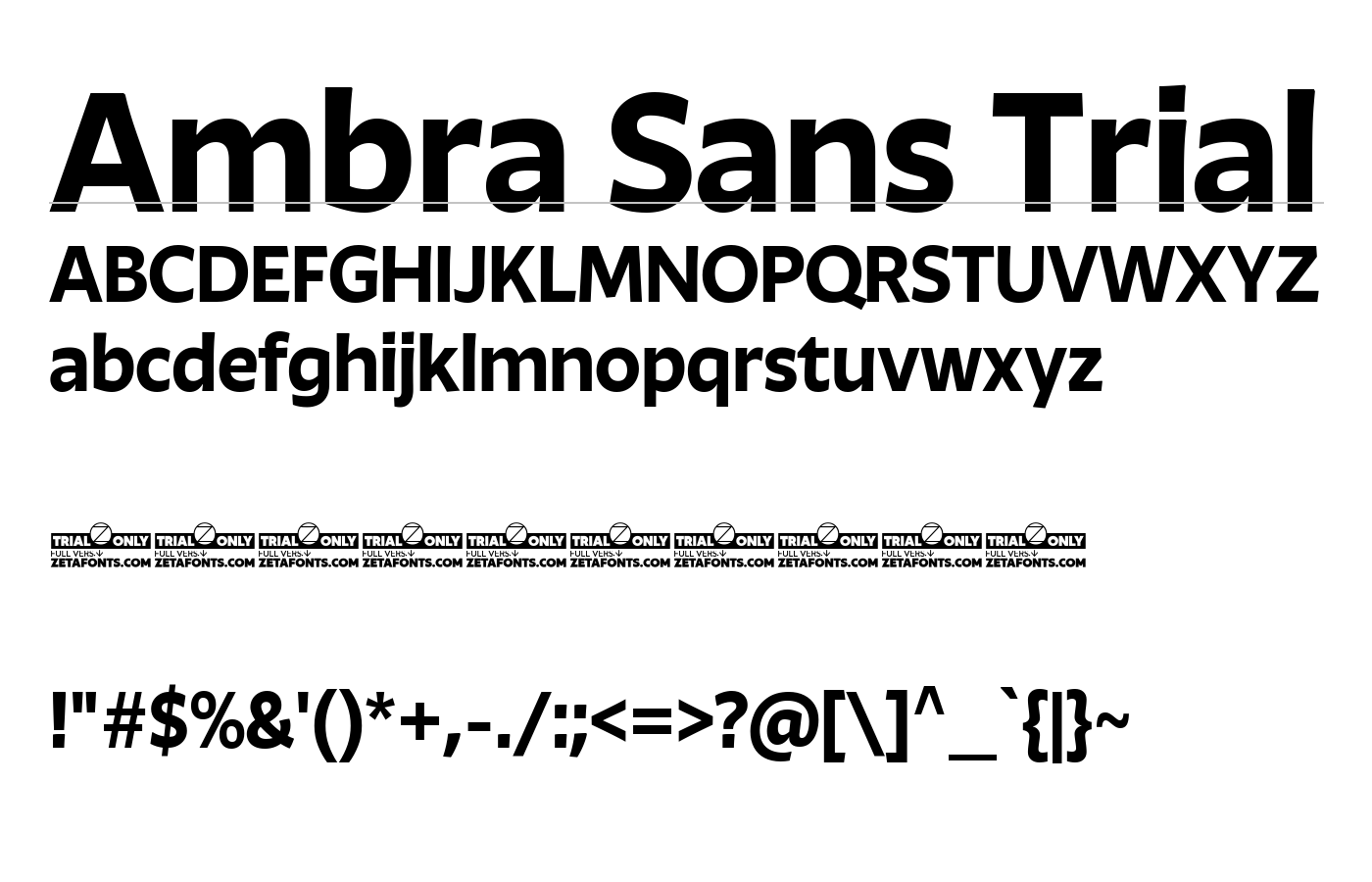
Ambra Sans Trial is a bold, modern sans serif font with a strong, sturdy presence and slightly condensed letterforms. It features clean, geometric shapes with subtle unique touches in characters like the angled tail of the Q and the distinctive ampersand, making it both professional and approachable. This font works well for headlines, branding, and editorial use where clarity and impact are important.
Ambra Sans Trial Font
About Ambra Sans Trial Font